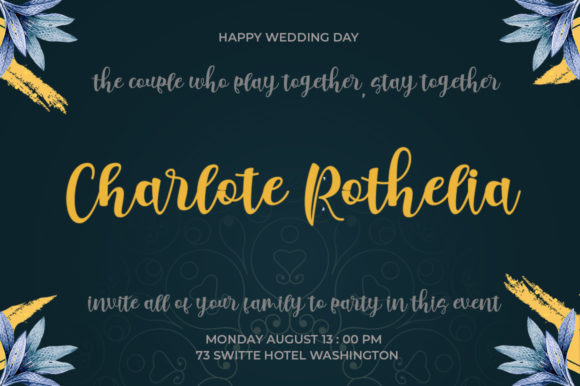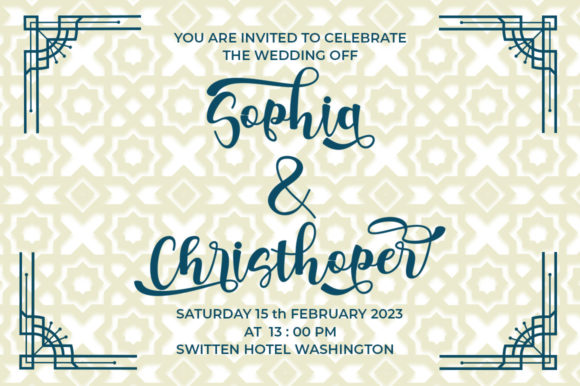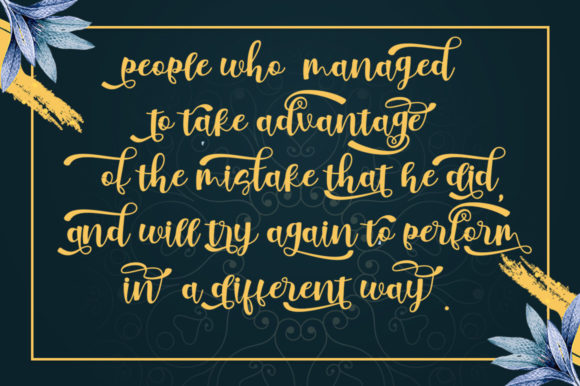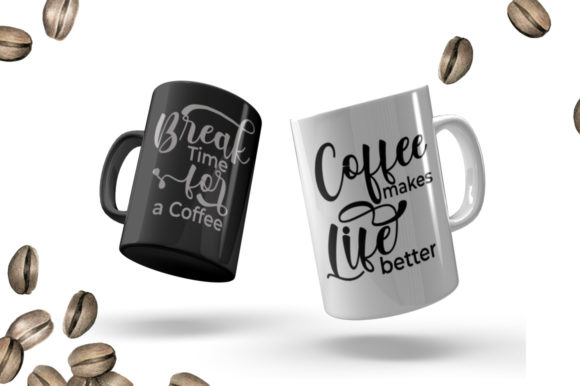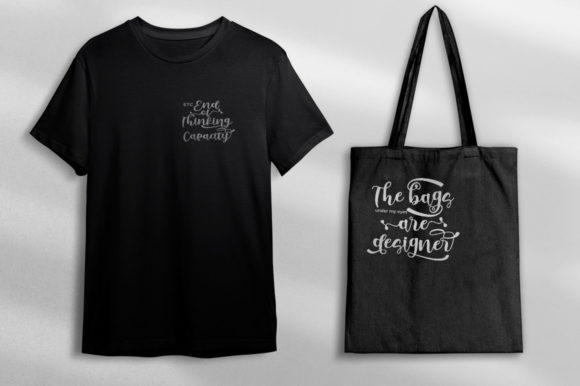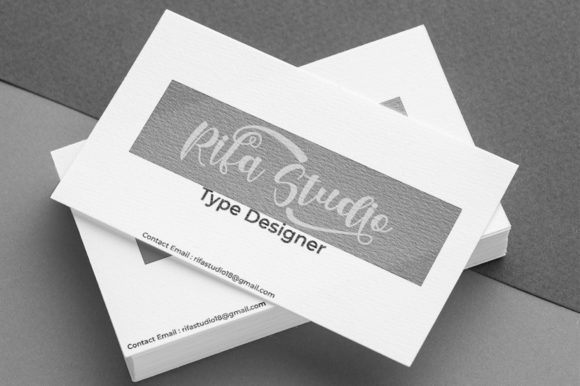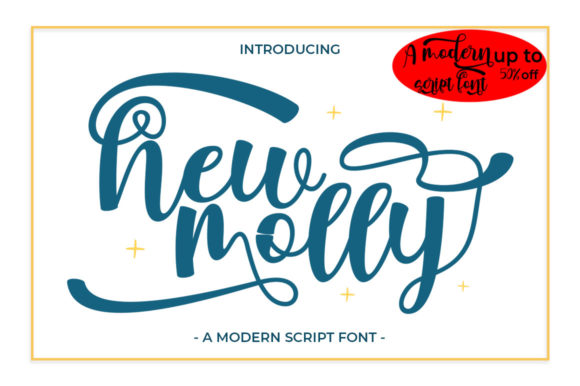
New Molly Font
About New Molly Font
New Molly is a beautiful and modern handwritten font with a unique feel and a stunning impact. It will add a luxury spark to any design project that you wish to create! This font is PUA encoded, which means you can access all of the amazing glyphs and ligatures with ease!